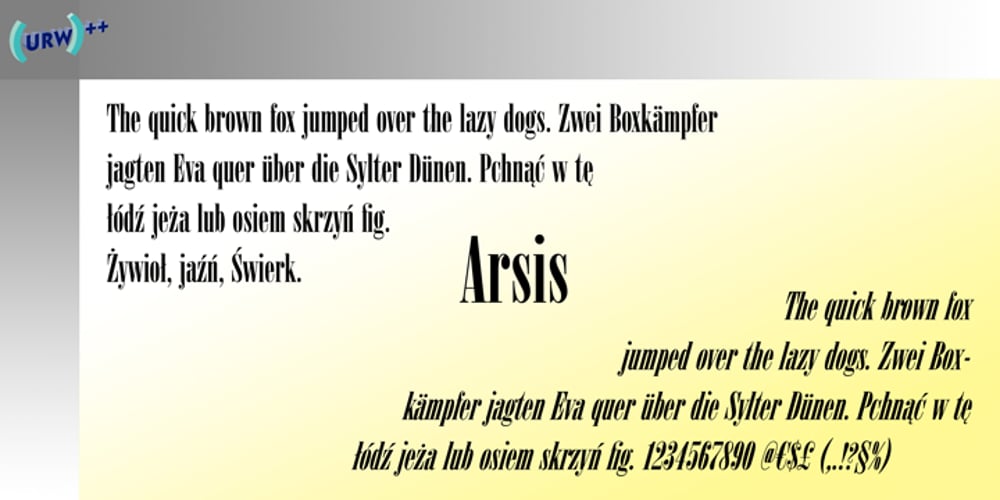
Arsis
Arsis font
Arsis Font Family was designed by Gerry Powell and published by URW Type Foundry. Arsis contains 2 styles and family package options. Arsis Regular Font was designed by Gerry Powell in 1937. It is a Serif (Antiqua) Modern Style font. Arsis Regular font attributes include roman serif, Didone, elegant, formal, modern style, feminine.